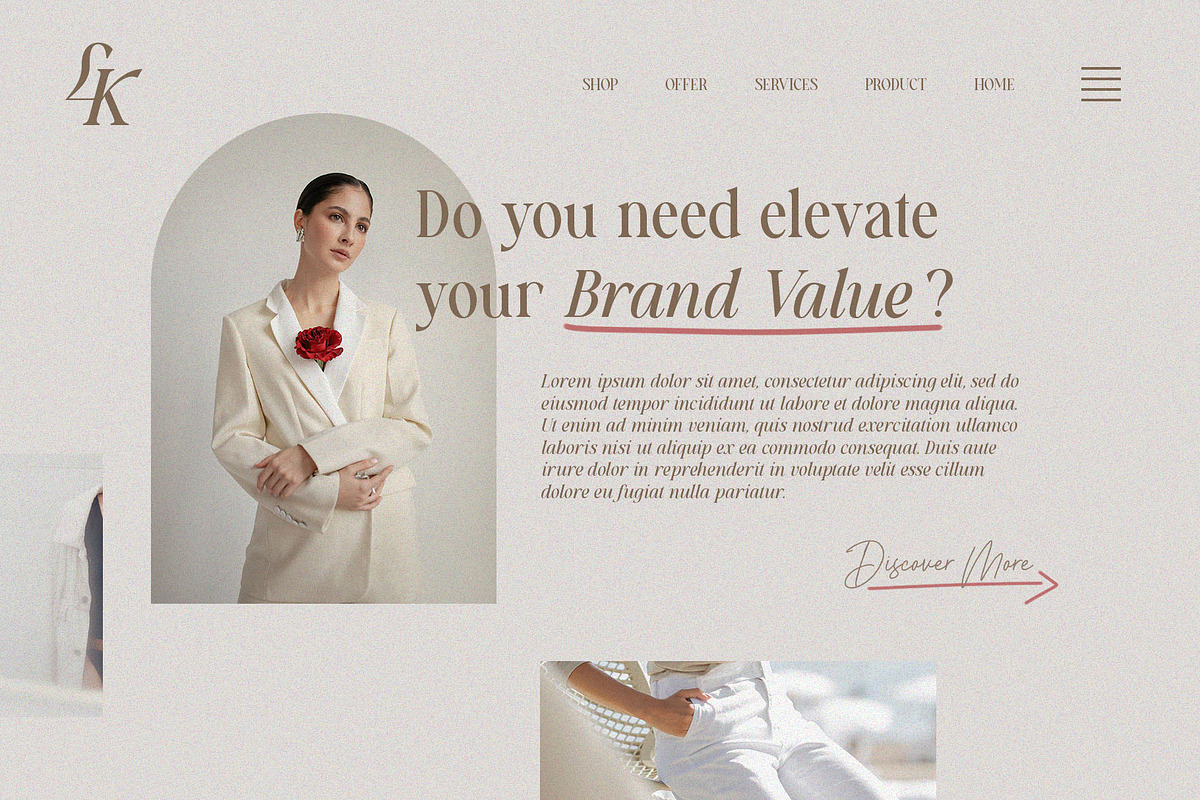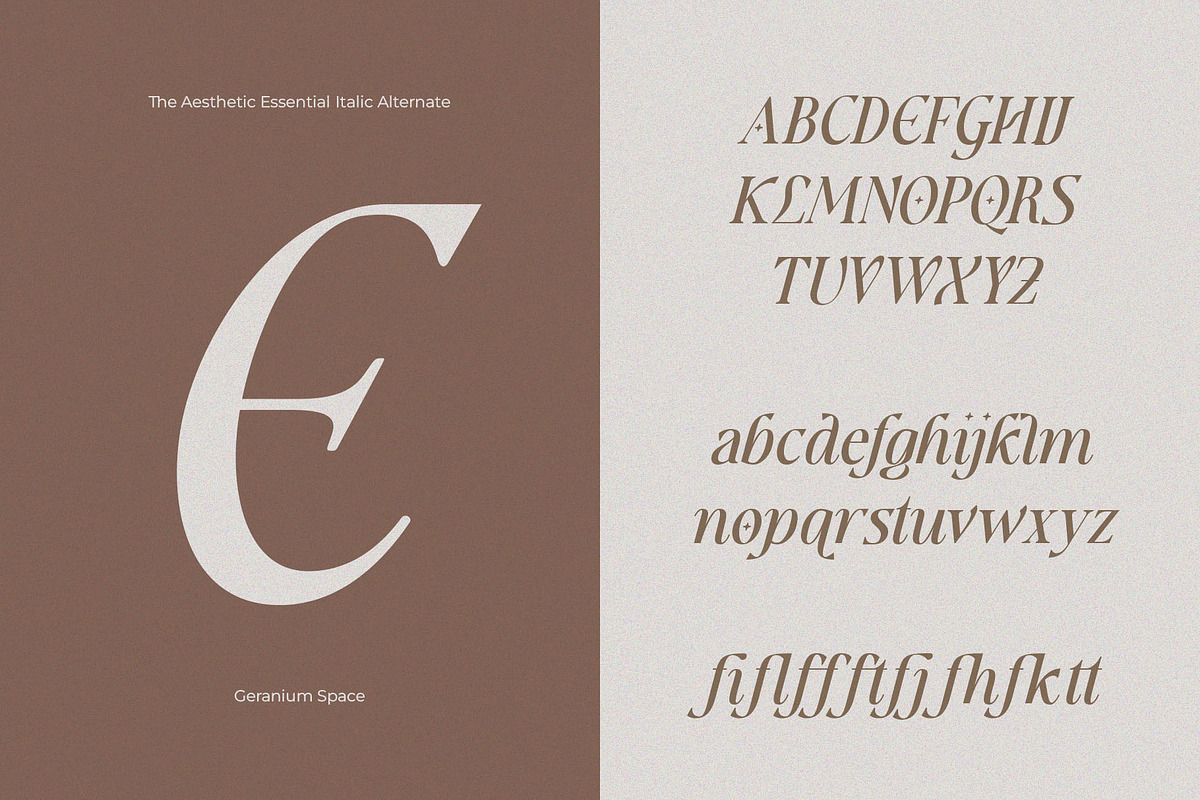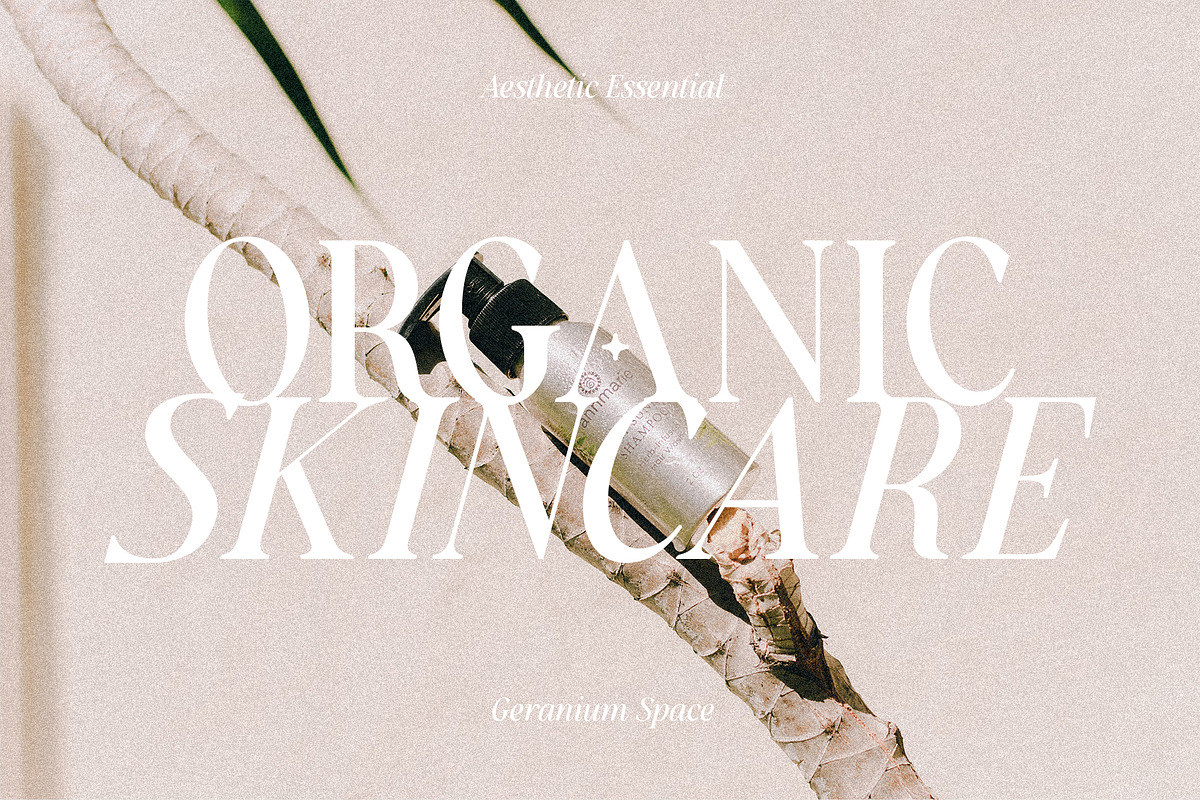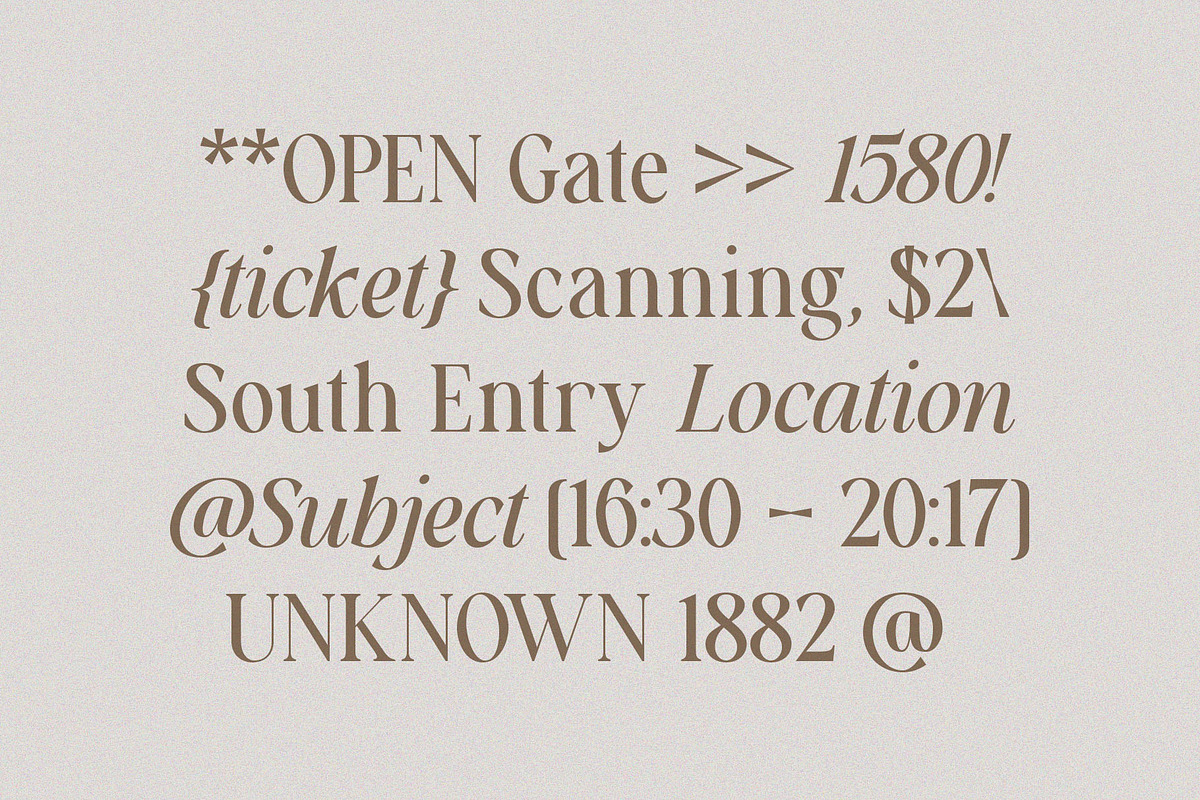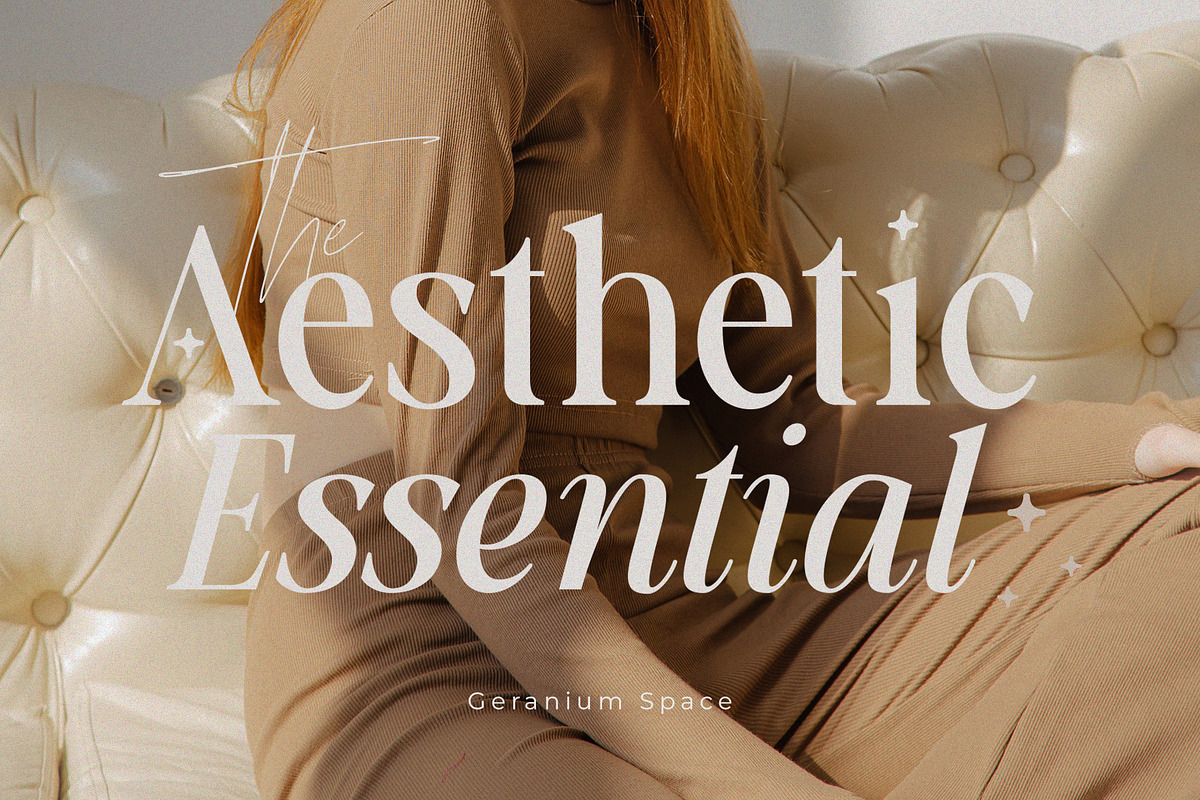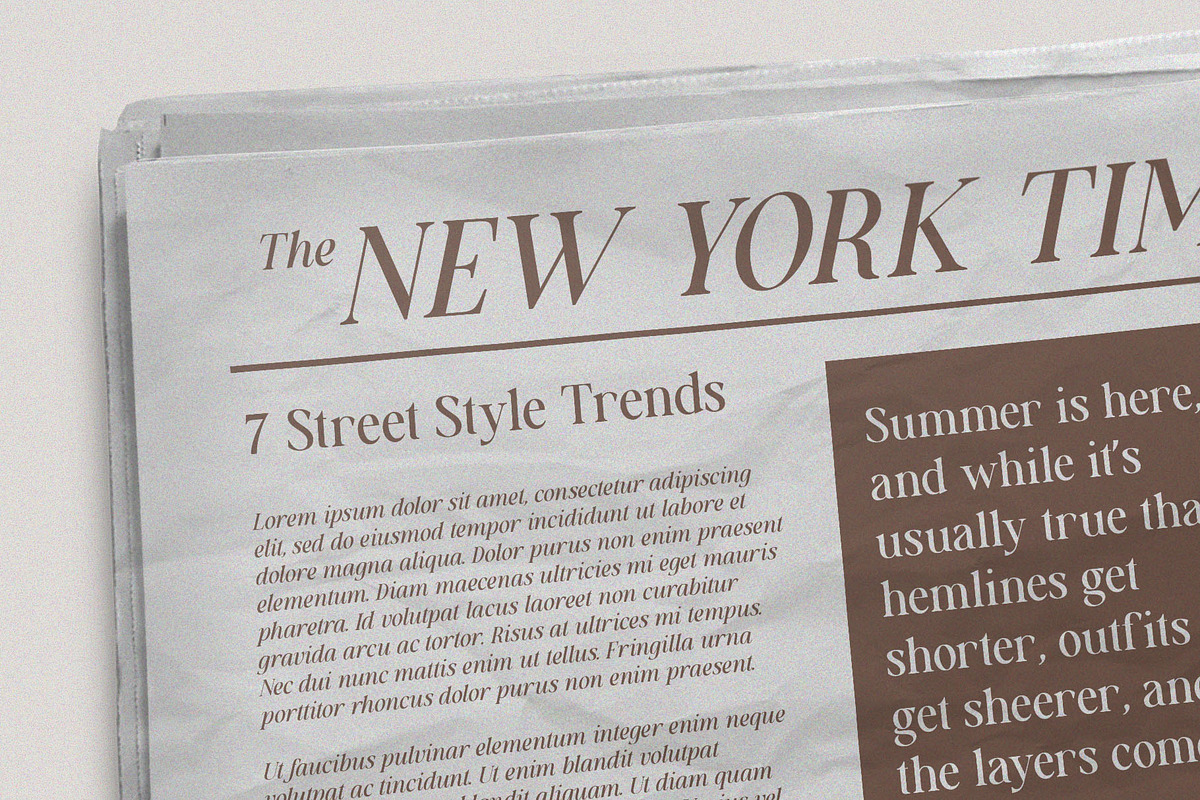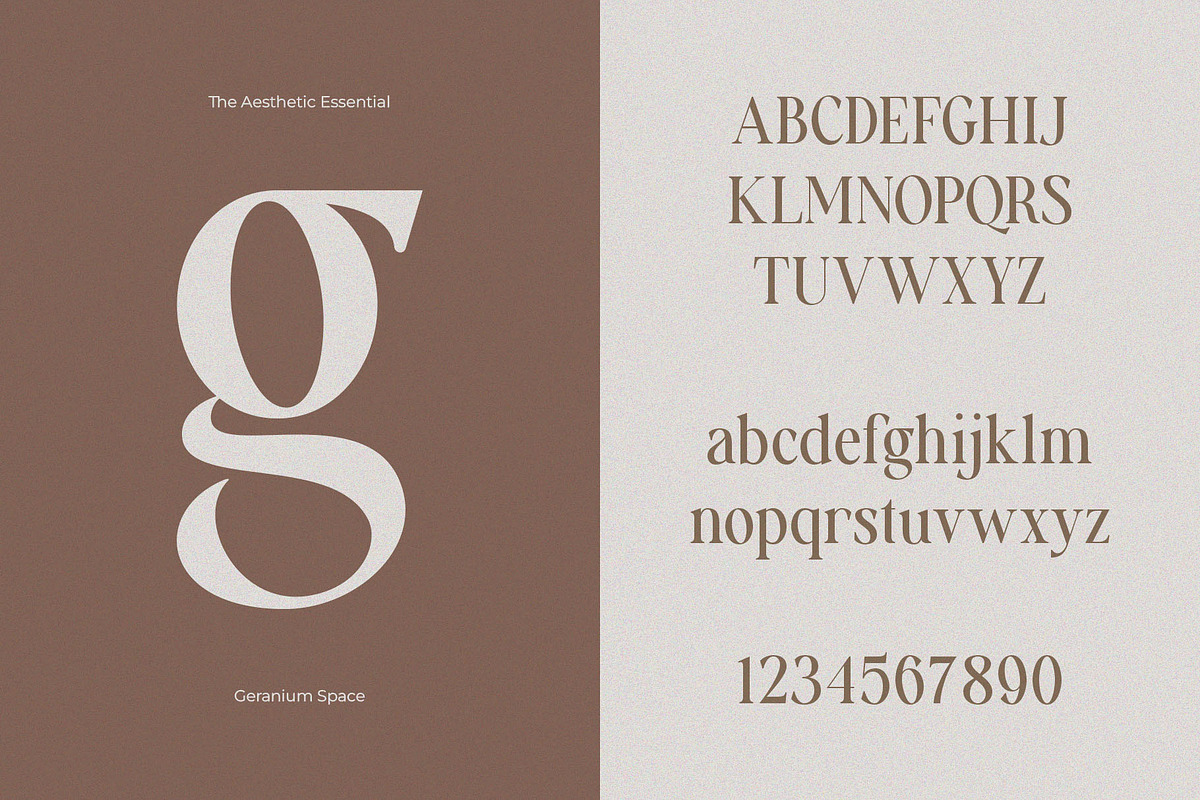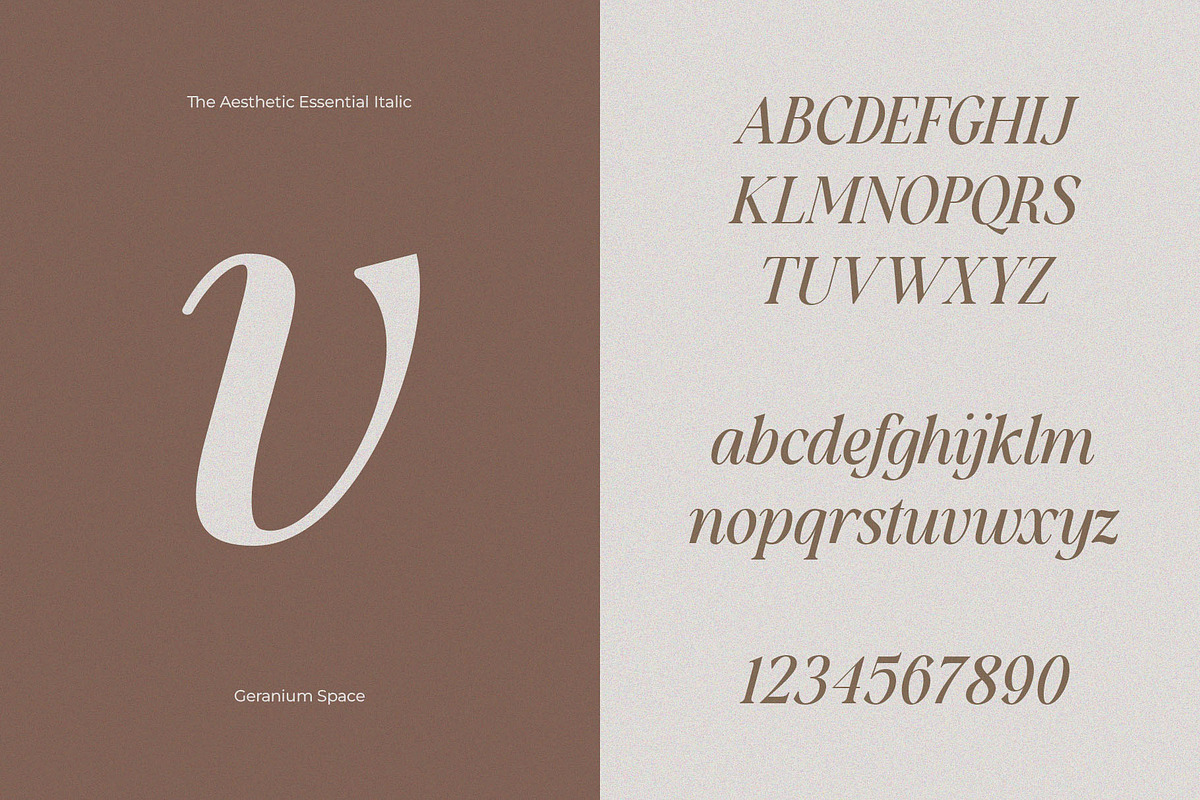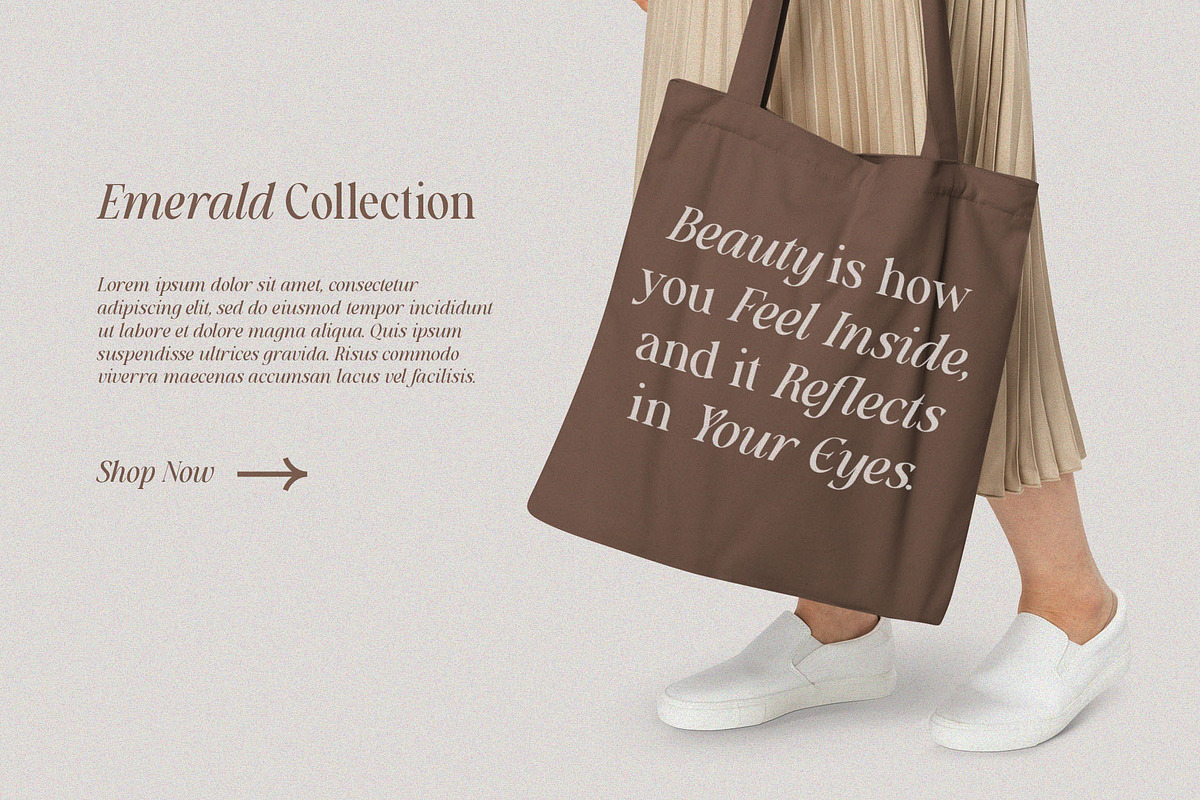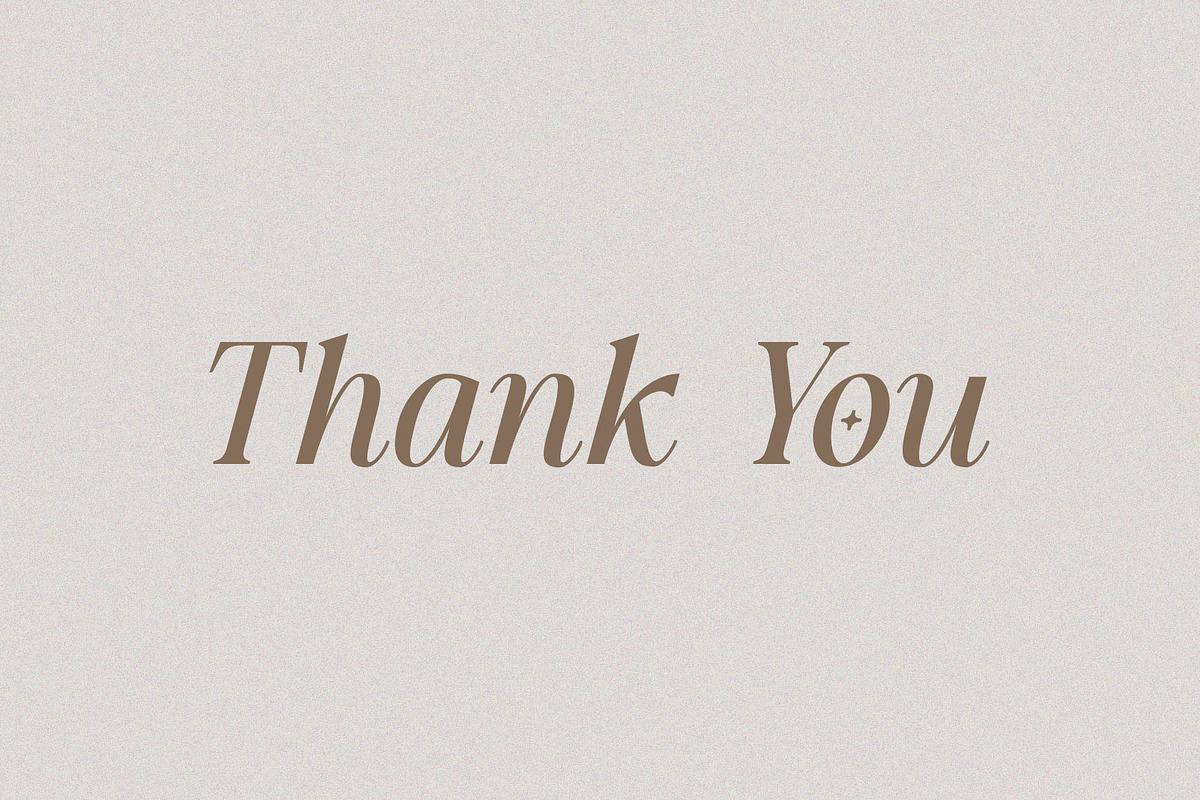
Aesthetic Essential | Modern Serif
Hello everyone let me introduce our new modern serif font Aesthetic Essential in a feminine style. I provide many alternative letters that you can adjust to your design for a feminine impression.
Aesthetic Essential is perfect for web design, branding, logos, invitations, magazines, and more.
Aesthetic Essential Features :
- Multilanguange